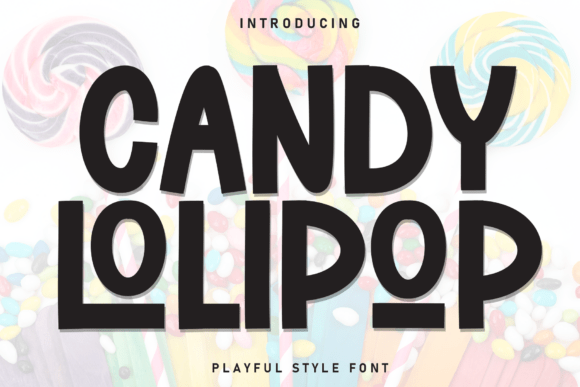
The Sweet Spot: Discovering the Charm of Candy Lolipop Font
I’ll never forget the time I was working on a branding project for a new bakery, and I was struggling to find the perfect font. The client wanted something that would evoke warmth, comfort, and a sense of nostalgia. I scoured the internet, tried out countless fonts, but nothing seemed quite right. That was until I stumbled upon Candy Lolipop Font. 💡
It was love at first sight! The clean structure, the approachable style, and the balanced letterforms all came together to create a font that was both readable and charming. I knew immediately that it was the perfect fit for the bakery’s branding. In this article, I’ll share with you why I’m so fond of Candy Lolipop Font, its features, and how to make the most of it in your designs.
A Honest Review: The Good and the Not-So-Good
- ✨ Clean and neat design that works well for branding, headlines, and everyday designs
- ✅ Highly readable, even at smaller font sizes
- 💕 Approachable and charming, perfect for creating a warm and inviting atmosphere
- 🎉 Works well with a variety of design styles, from modern to vintage
- 🤔 Limited availability of stylistic alternates, which might limit its use in more complex designs
- ⚠️ Not ideal for body text, as it’s better suited for headlines and titles
The Designer Inspiration Behind Candy Lolipop Font
Candy Lolipop Font was designed with the goal of creating a clean, approachable, and charming font that would work well for a variety of design projects. The designer wanted to create a font that would evoke a sense of warmth and comfort, similar to the feeling of enjoying a sweet treat on a hot summer day. The result is a font that’s both modern and timeless, with a unique personality that’s sure to capture the attention of your audience.
Q: What type of projects is Candy Lolipop Font best suited for?
A: Candy Lolipop Font is versatile and can be used for a variety of projects, including branding, headlines, and everyday designs.
Q: Can I use Candy Lolipop Font for body text?
A: While Candy Lolipop Font is highly readable, it’s better suited for headlines and titles. For body text, you may want to consider a font with more traditional proportions.
Q: Does Candy Lolipop Font support OpenType features?
A: Yes, Candy Lolipop Font supports OpenType features, including glyphs and stylistic alternates.